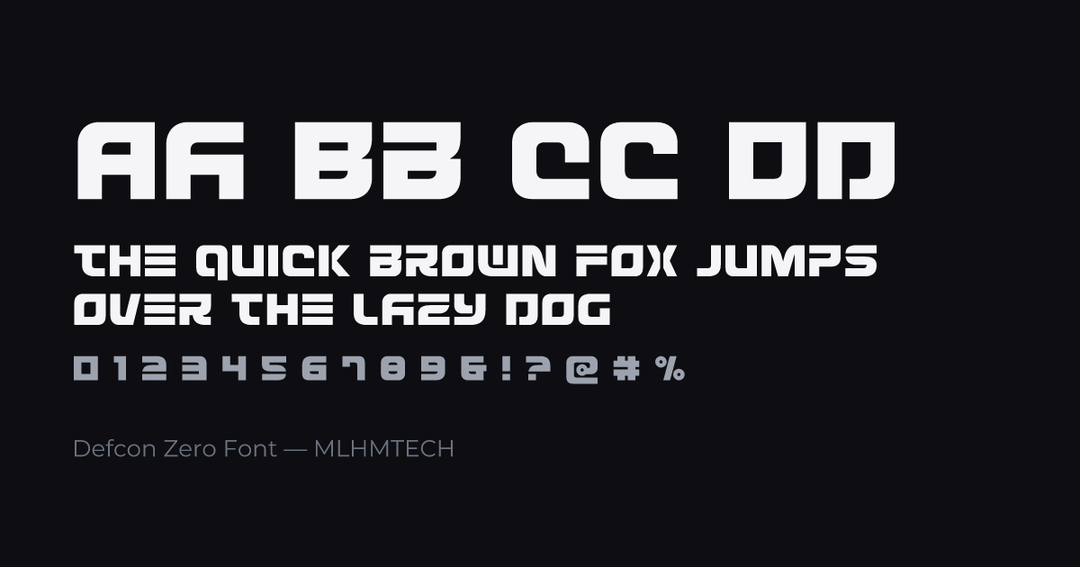
Defcon Zero Font
Defcon Zero is a bold, modern display font ideal for impactful headlines, logos, and branding projects. Includes TTF file.
Defcon Zero is a striking display font that commands attention. Its bold, geometric letterforms are perfect for headlines, posters, and branding that needs a strong, contemporary edge. The font is designed to be highly legible even at large sizes, making it a versatile choice for both print and digital media.
This font comes in a TTF file format, ensuring compatibility with most design software. Whether you're creating a logo, designing a website, or crafting a poster, Defcon Zero adds a touch of modern sophistication to your work. Its clean lines and confident presence make it a go-to for designers seeking a font that stands out.